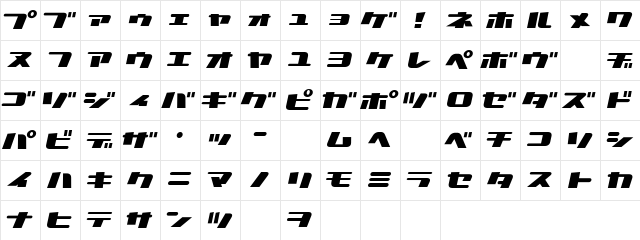
Naionalyze Regular
Design Context for Naionalyze Typeface
Naionalyze takes a measured approach to typography — its balanced proportions and neutral character make it a reliable workhorse for both digital and print work.